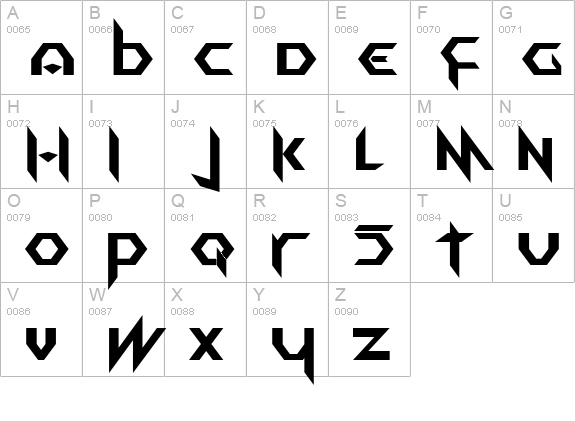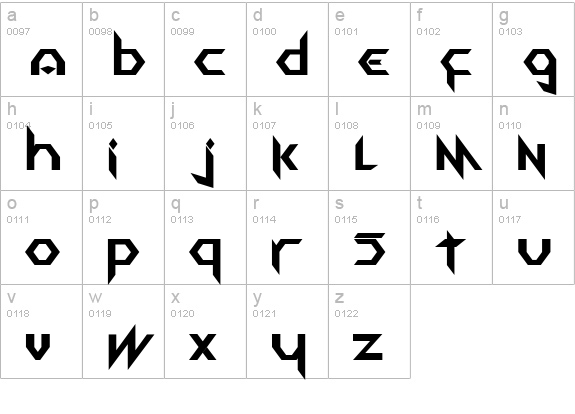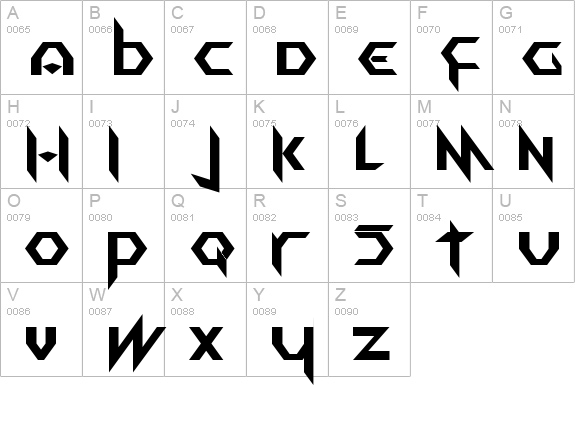
EQUINOX Font Details
EQUINOX font is a modern, sleek typeface that exudes elegance and sophistication. Its clean lines and balanced proportions make it perfect for a wide range of design projects, from branding to editorial design. The font features a unique blend of sharp angles and subtle curves, giving it a contemporary and stylish look. What sets EQUINOX font apart is that it is not only visually striking but also versatile and easy to read. Whether used for headlines, body text, or logos, this font is sure to make a statement and leave a lasting impression. And the best part? EQUINOX font is available for free download at FontsMarket.com. So why wait? Elevate your design projects with this stunning typeface today!